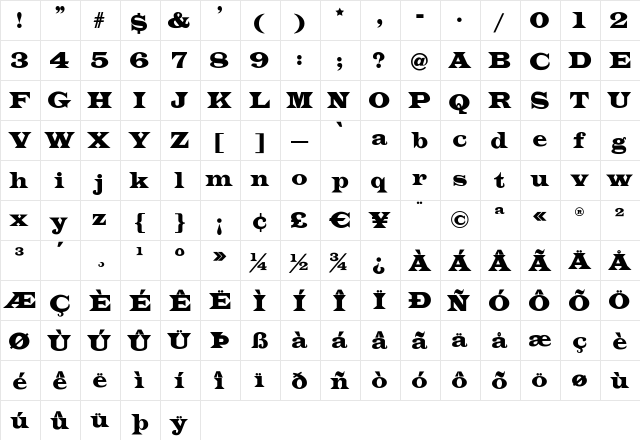
Indubitably Regular
Design Context for Indubitably Typeface
Indubitably offers clean, dependable letterforms without strong stylistic allegiance, making it a practical choice for designers who need flexibility.
Pro Tip: Use Indubitably in both headline and body roles to test its range before committing to a single application.